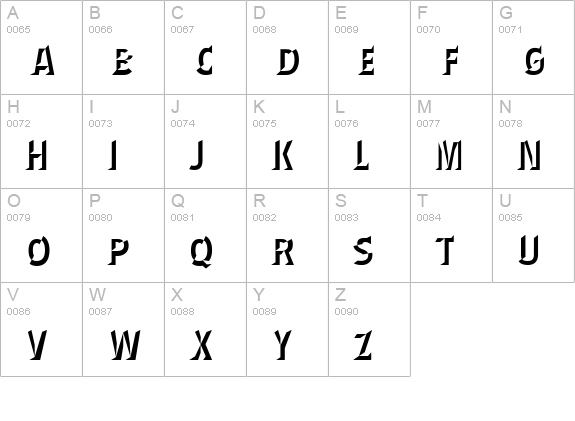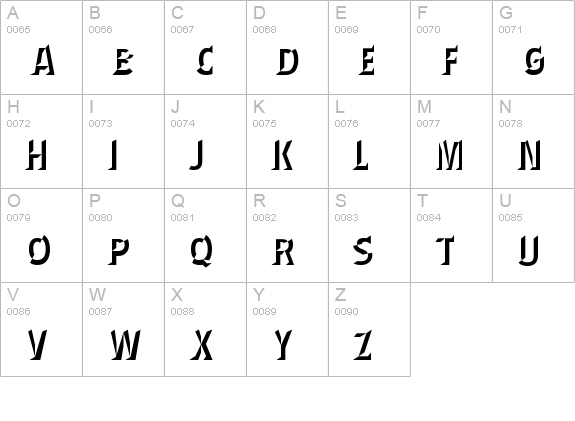
Wednesday Matinee Shadow font is a captivating and versatile typeface that effortlessly captures the essence of vintage cinema and classic elegance. With its beautifully intricate shadow effect, this font exudes an air of mystery and sophistication, making it the perfect choice for any project that seeks to create a sense of nostalgia or evoke the glamour of a bygone era. This font's carefully crafted design features bold and dramatic letterforms, with subtle curves and sharp angles that add a touch of drama and intrigue. Each character is meticulously detailed, ensuring that every word written in Wednesday Matinee Shadow font becomes a visual masterpiece. What makes Wednesday Matinee Shadow font even more appealing is that it is available free of charge, allowing creatives and designers to access its charm and versatility without any financial constraints. You can easily download this font at FontsMarket.com, a trusted source for high-quality fonts. Whether you're designing a movie poster, creating a vintage-inspired logo, or adding a touch of elegance to your branding materials, Wednesday Matinee Shadow font is sure to make a lasting impression. Its timeless appeal and freely accessible nature make it a must-have for any design enthusiast or typographic connoisseur. Embrace the allure of classic cinema and effortlessly elevate your designs with Wednesday Matinee Shadow font.